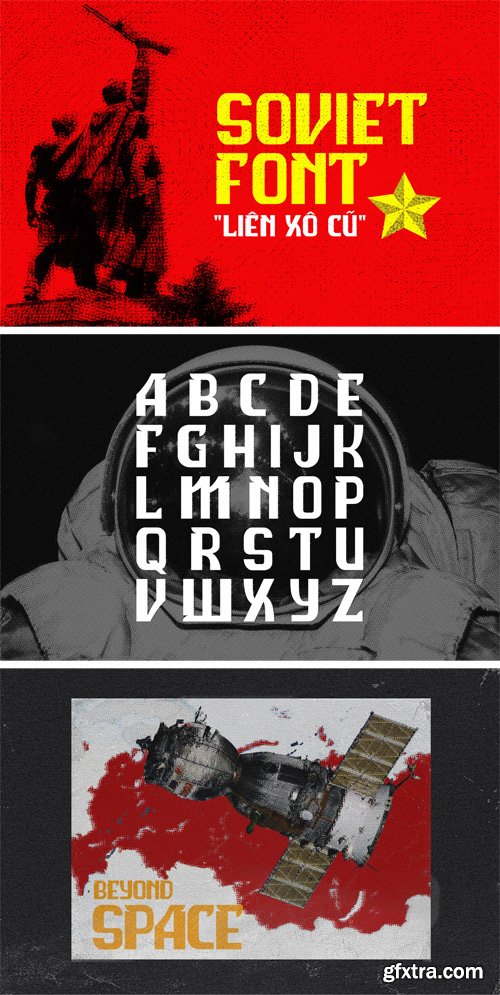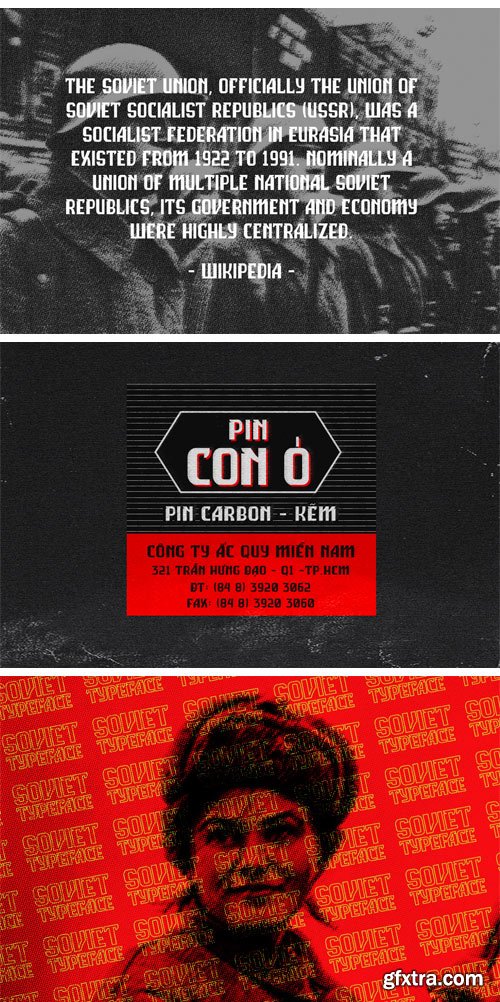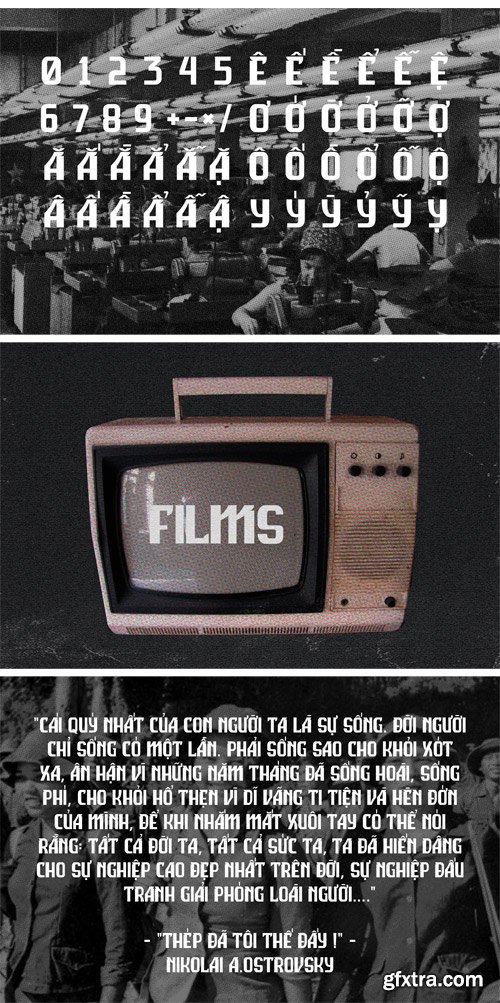
Soviet Font
SoViet Font is a font originated from in-depth researches of many fonts used during the old era of the Russian Federation harmonized with the vision of the author based on old design works and memory of childhood. Being a San-Serif font, SoViet Typeface owns stiff lines (paths) while showing elastic (smooth) curves and is ideally used for title or long text paragraph.